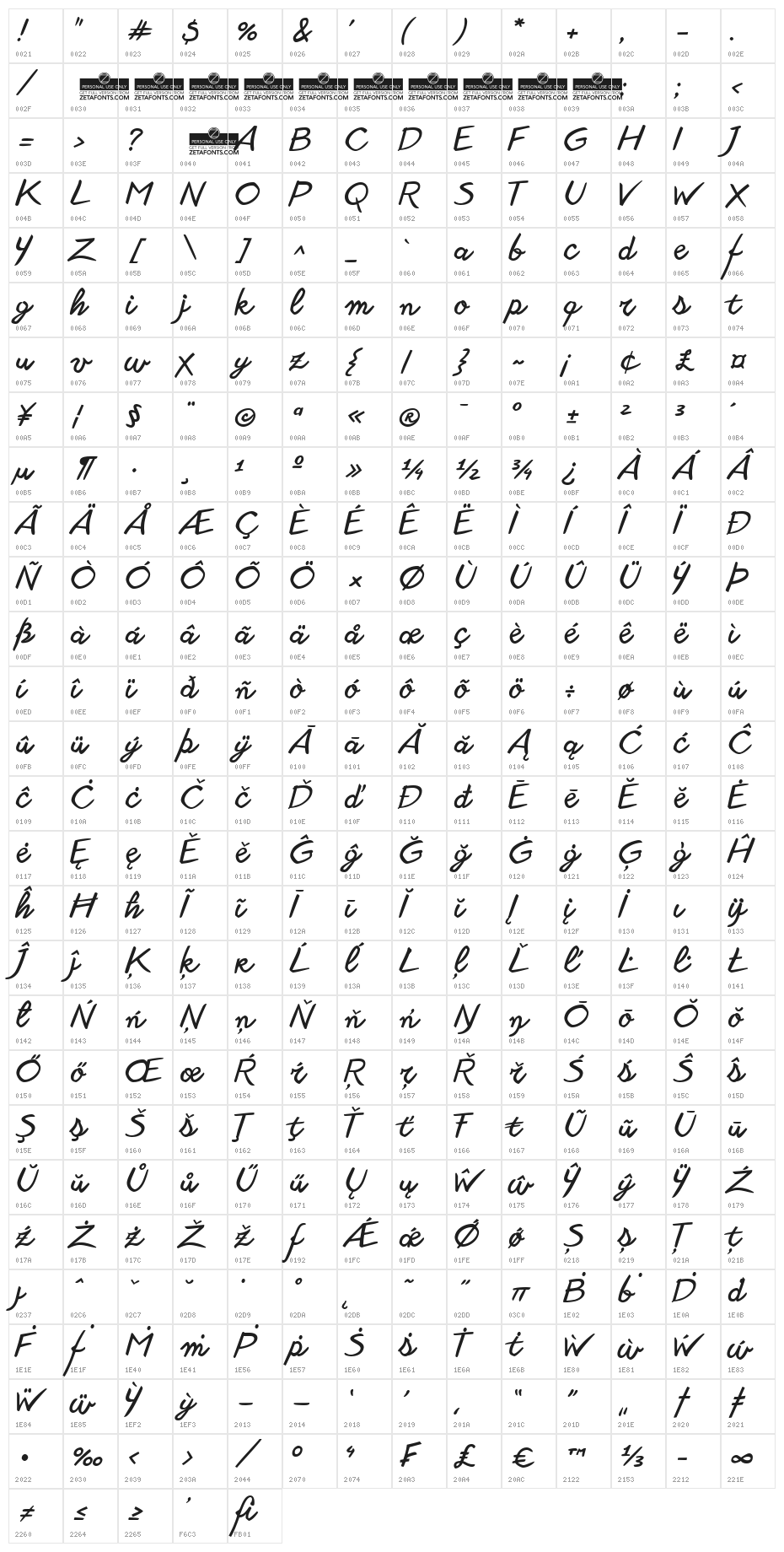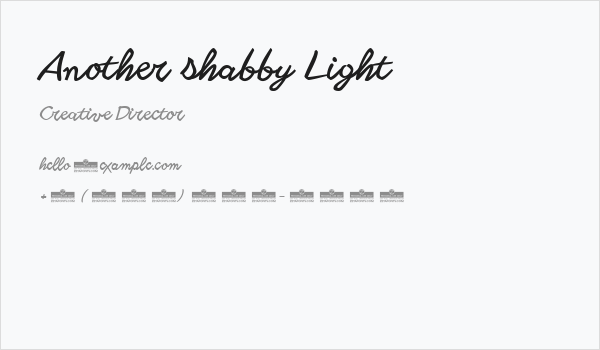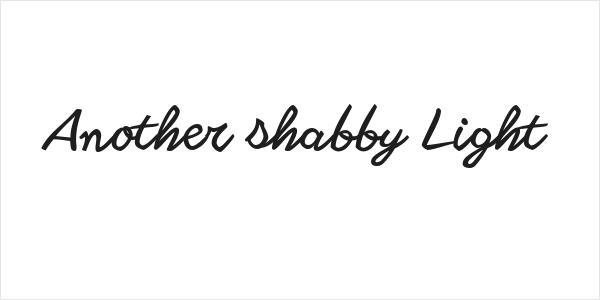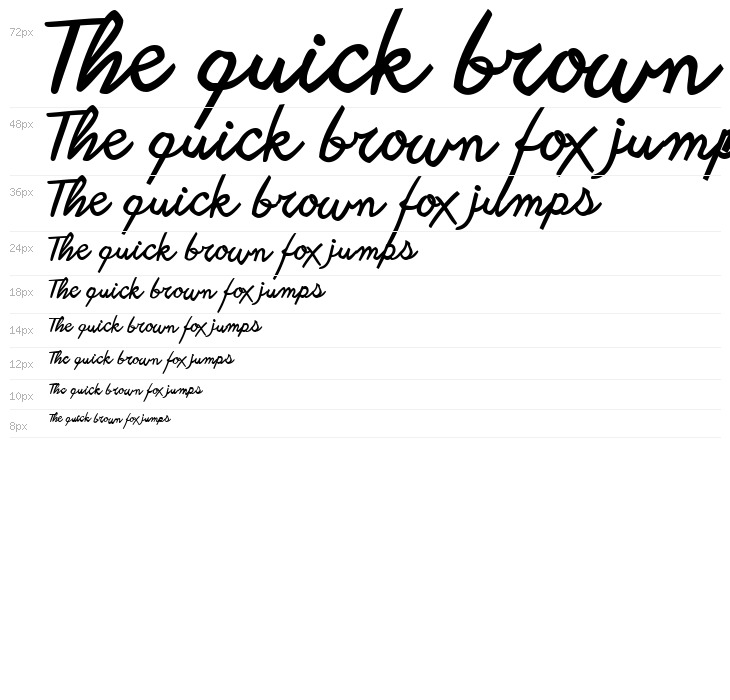
Another shabby Light Font
Another shabby Light Description
This font exudes a casual, handwritten style with a playful and dynamic character. The letters are slightly slanted, giving a sense of movement and fluidity. The strokes are bold and consistent, providing a strong presence on the page. The uppercase and lowercase letters are well-balanced, with a smooth transition between them. The special characters maintain the same playful style, ensuring a cohesive look across all text. This font is ideal for projects that require a personal touch or a creative flair.
Overall StyleCasual, Playful
Use CaseHeadlines, Logos, Creative projects
Proposed ProjectsGreeting cards, invitations, personal branding, creative posters, and social media graphics.